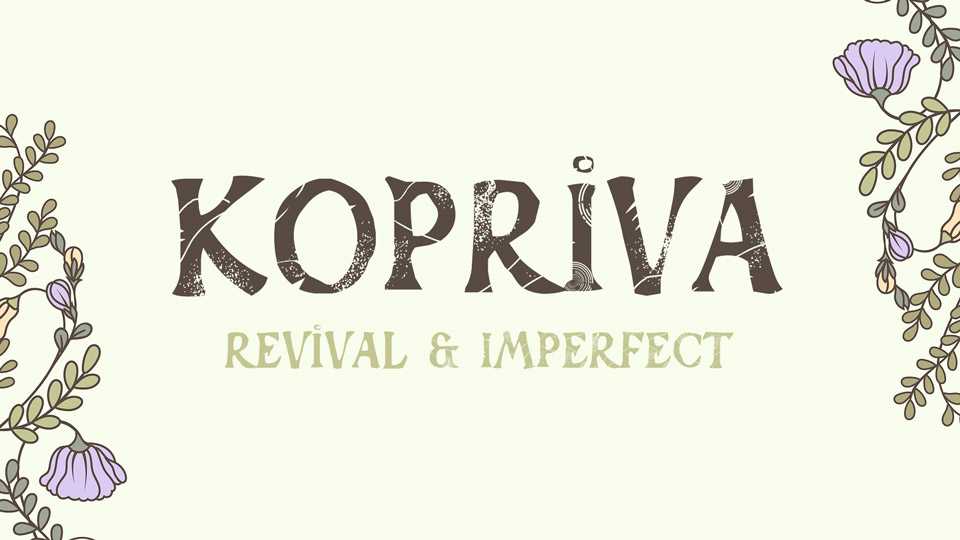
Download Kopriva typeface, a original font family based on writings imitating woodcut. It featured by two styles – Revival and Imperfect with many intentional print imperfections.
Designer: Vít Čondák